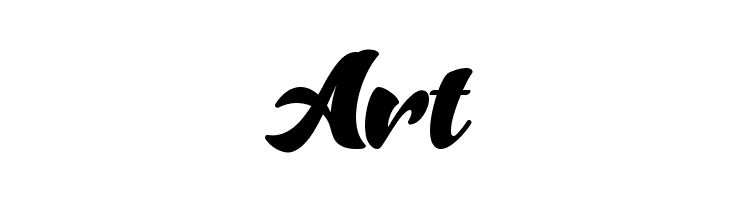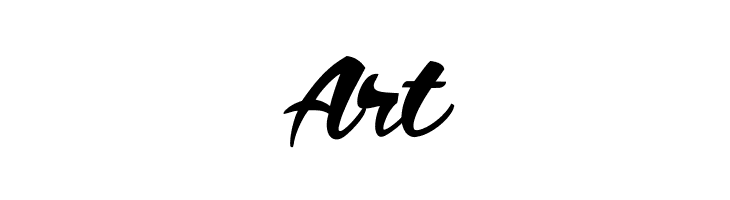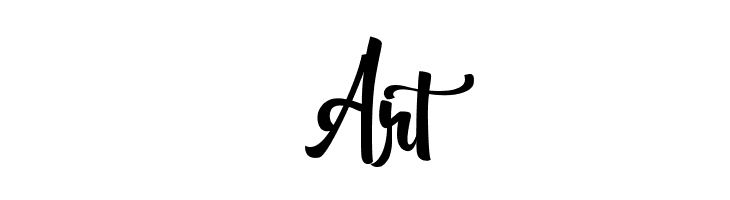
A graceful script font with fluid, connected strokes and elegant style.
A bold, flowing script font with a modern and playful style.
A bold, playful script font with dynamic, flowing strokes.
An elegant script font with flowing, interconnected letters and a calligraphic style.
A cursive, flowing script font with smooth, rounded strokes.
A playful and elegant script font with fluid, connected strokes.
A minimalistic and elegant script font with a modern touch.
A bold, dynamic script font with flowing, interconnected characters.
A bold, flowing script font with interconnected, ornate characters.